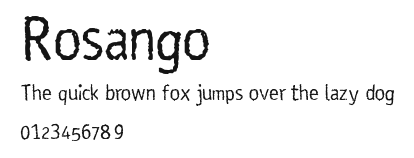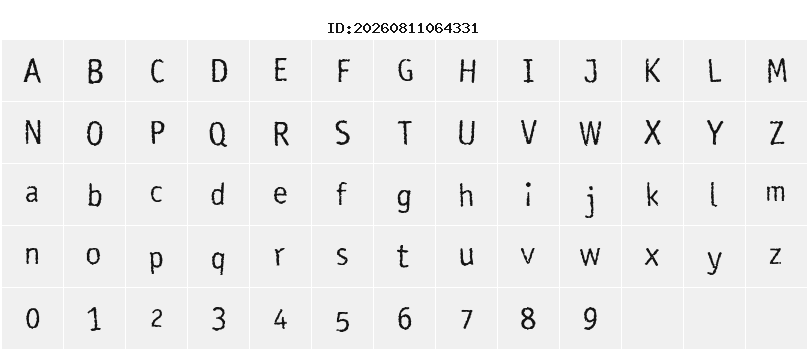
• Font Name: Rosango
• Full Font Name: Rosango Normal
Rosango.ttf is a modern, elegant sans-serif font designed for ultimate readability and visual harmony. Perfect for branding, headlines, web design, and print materials.